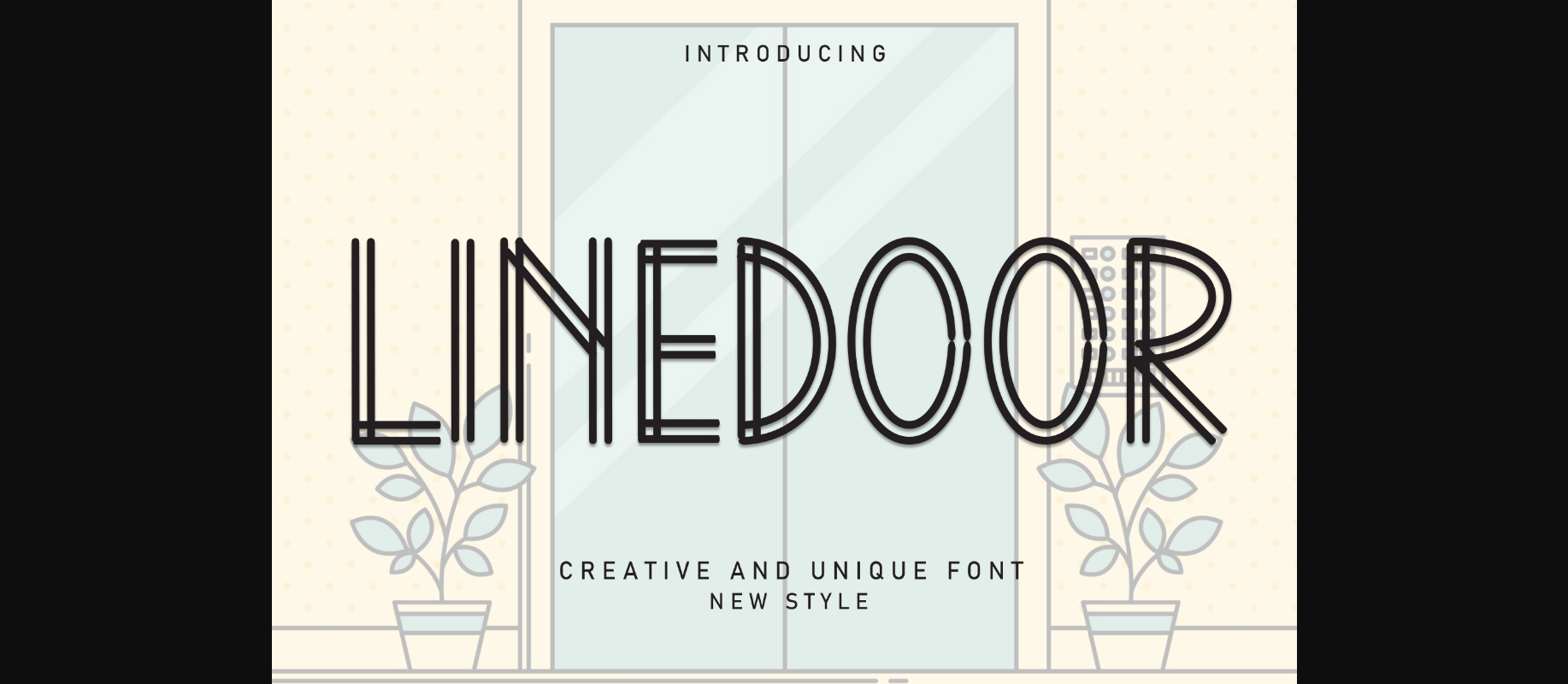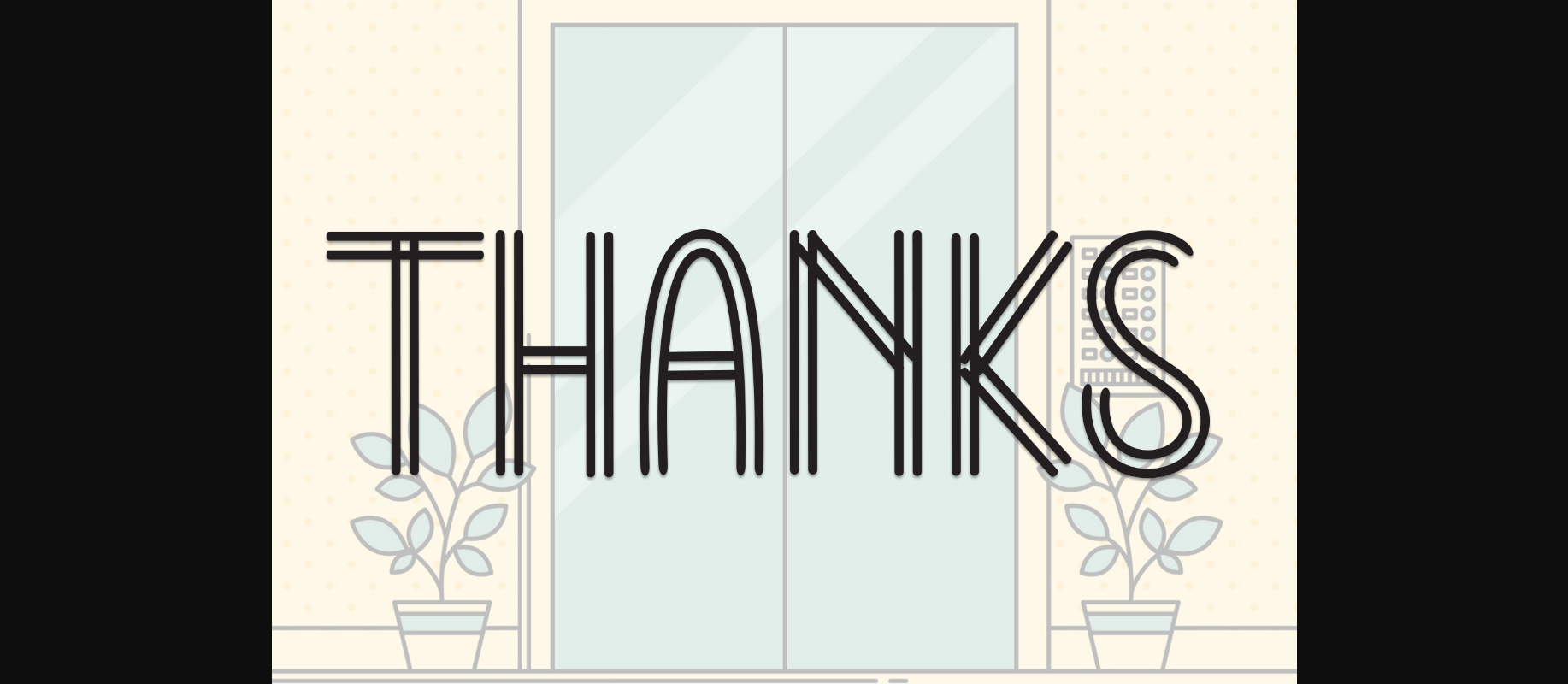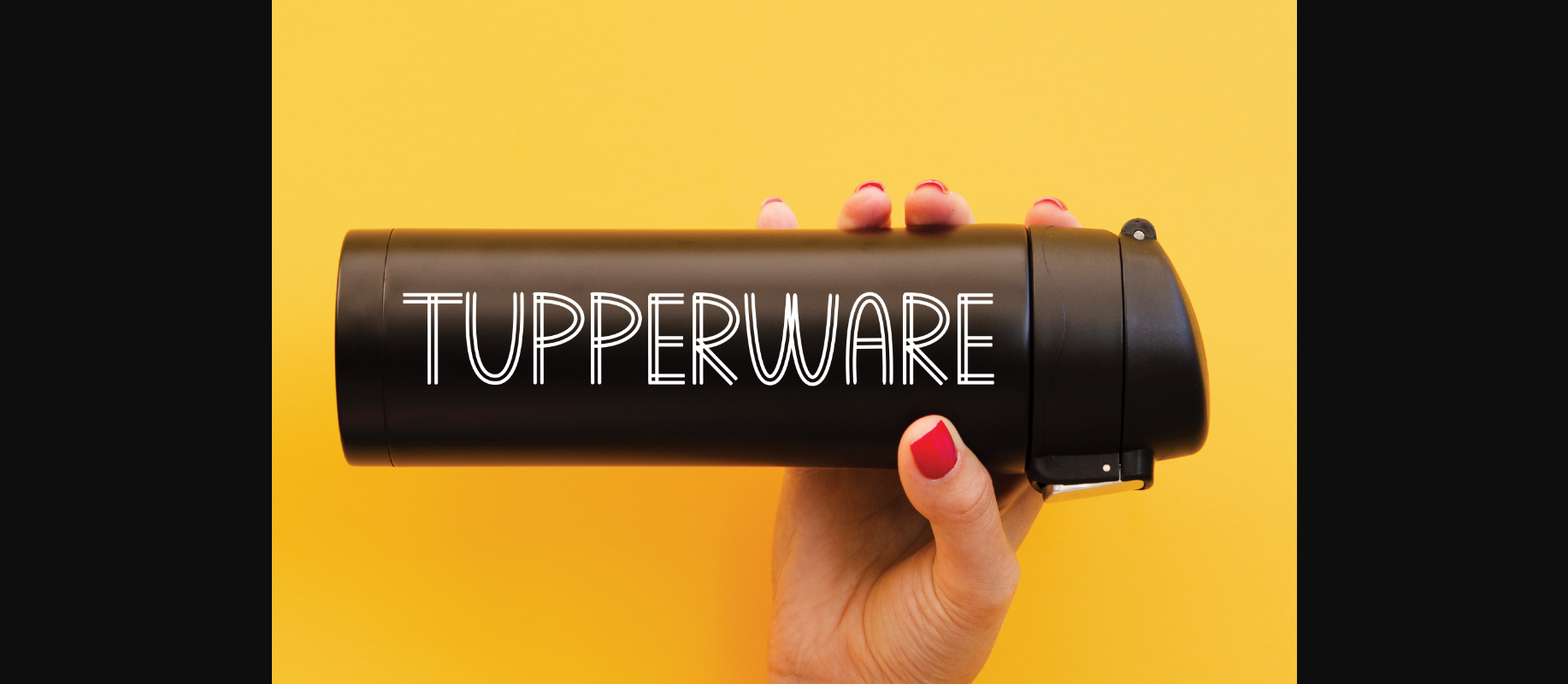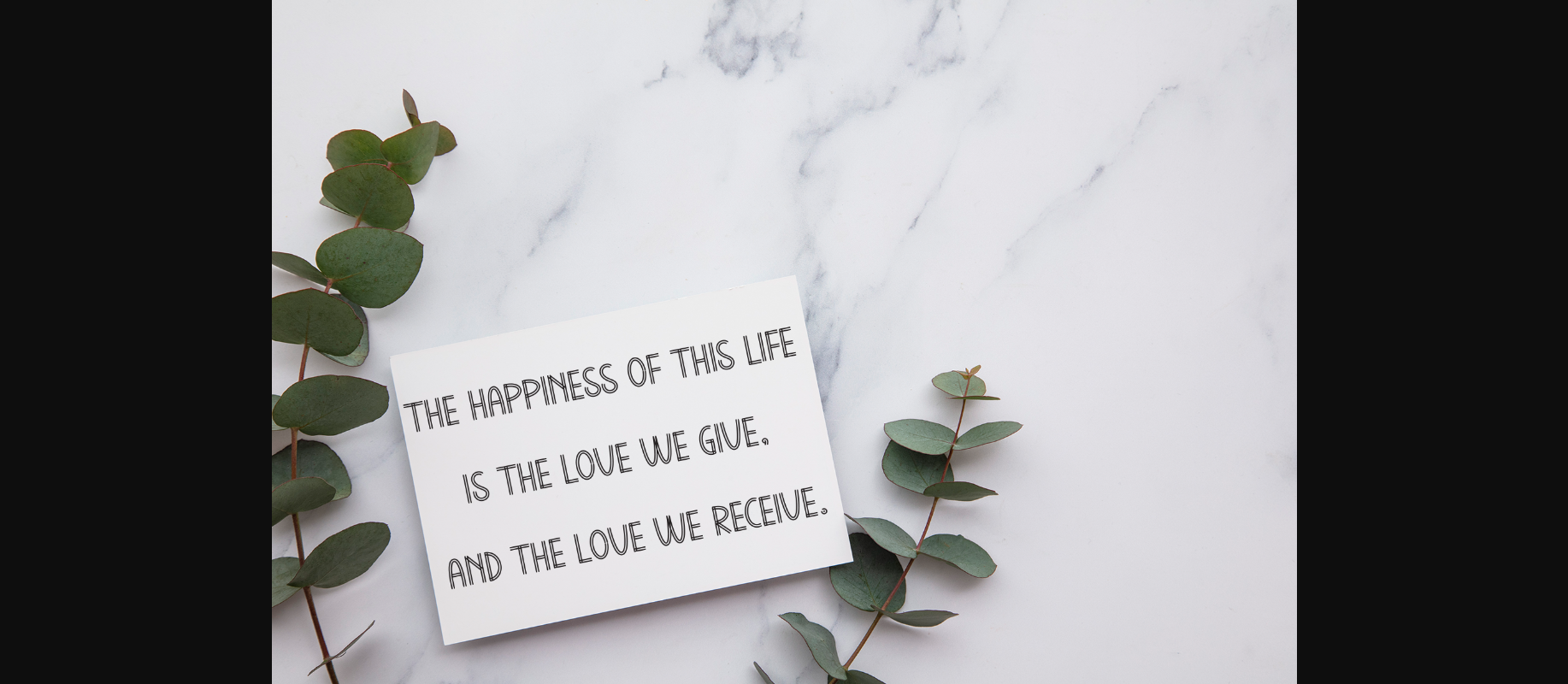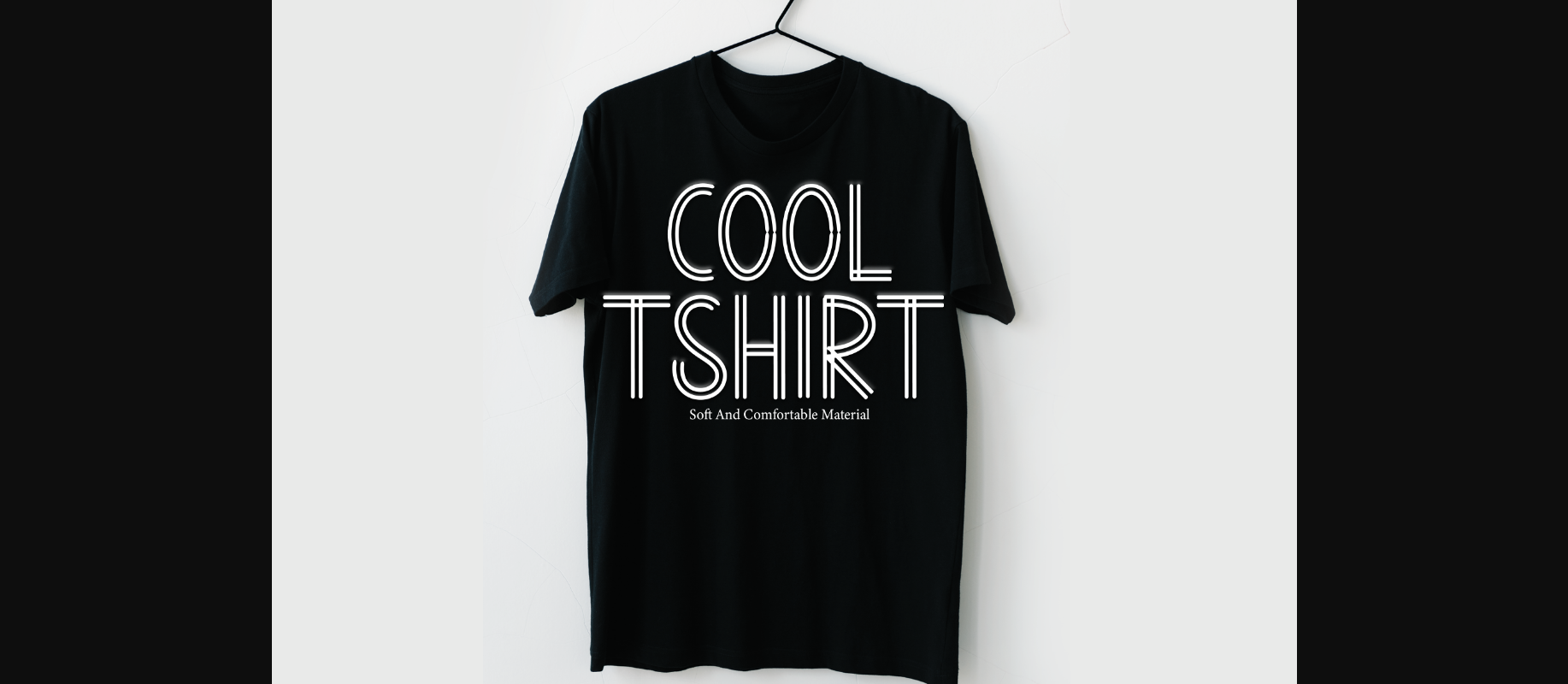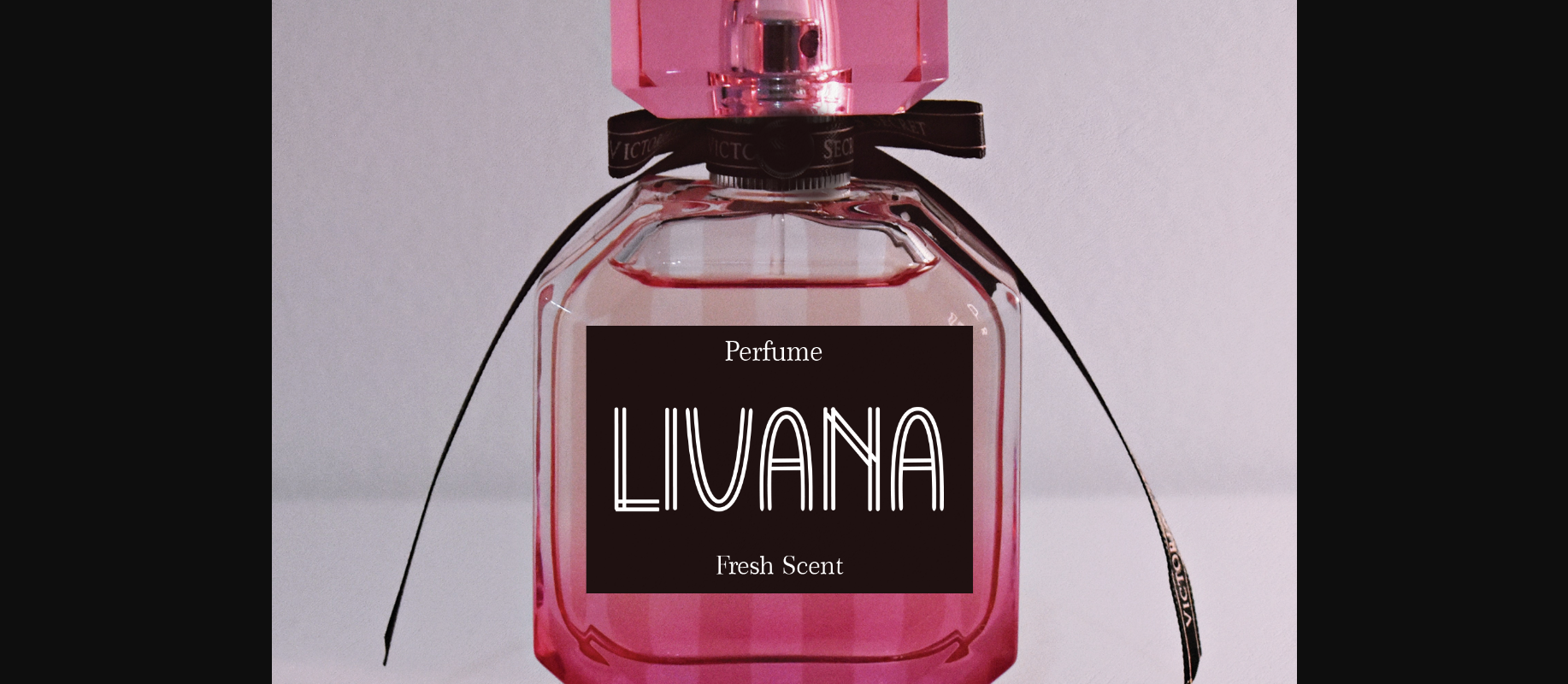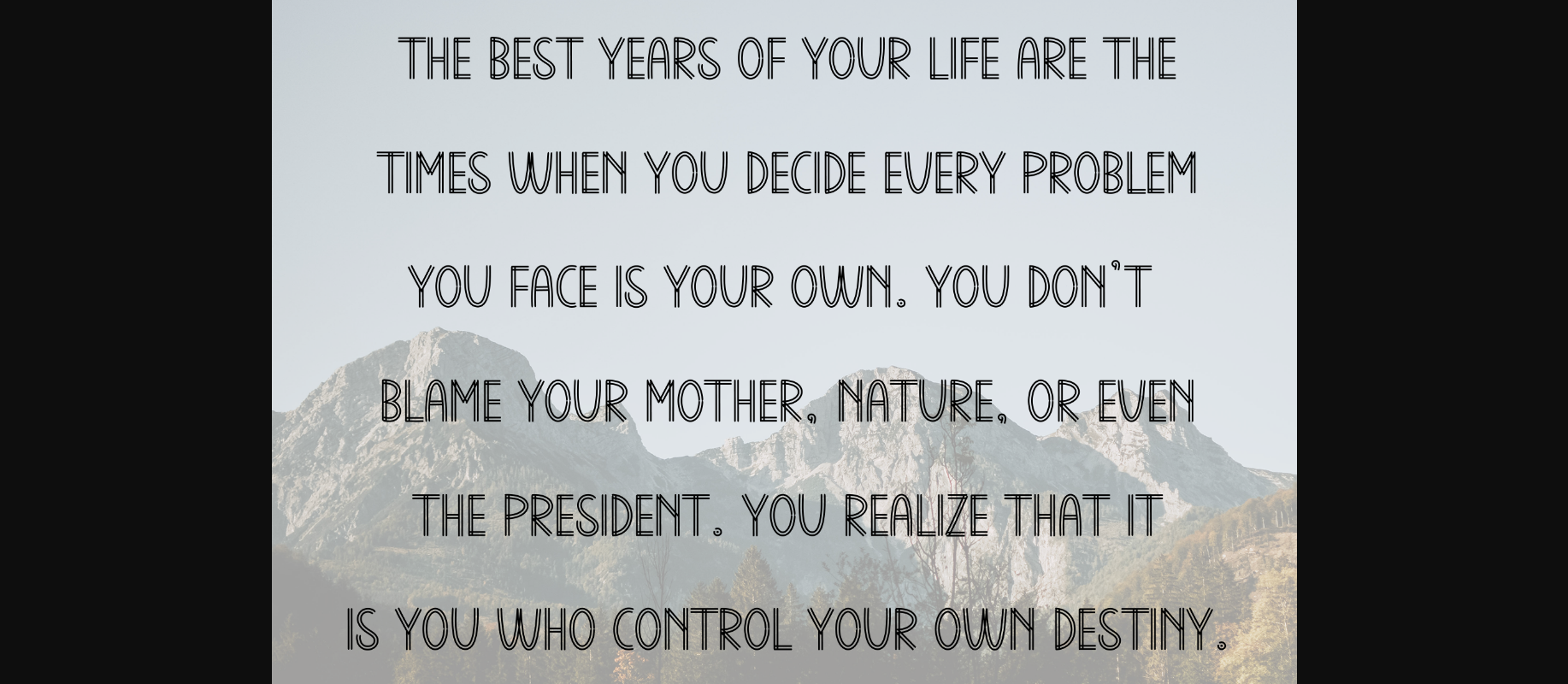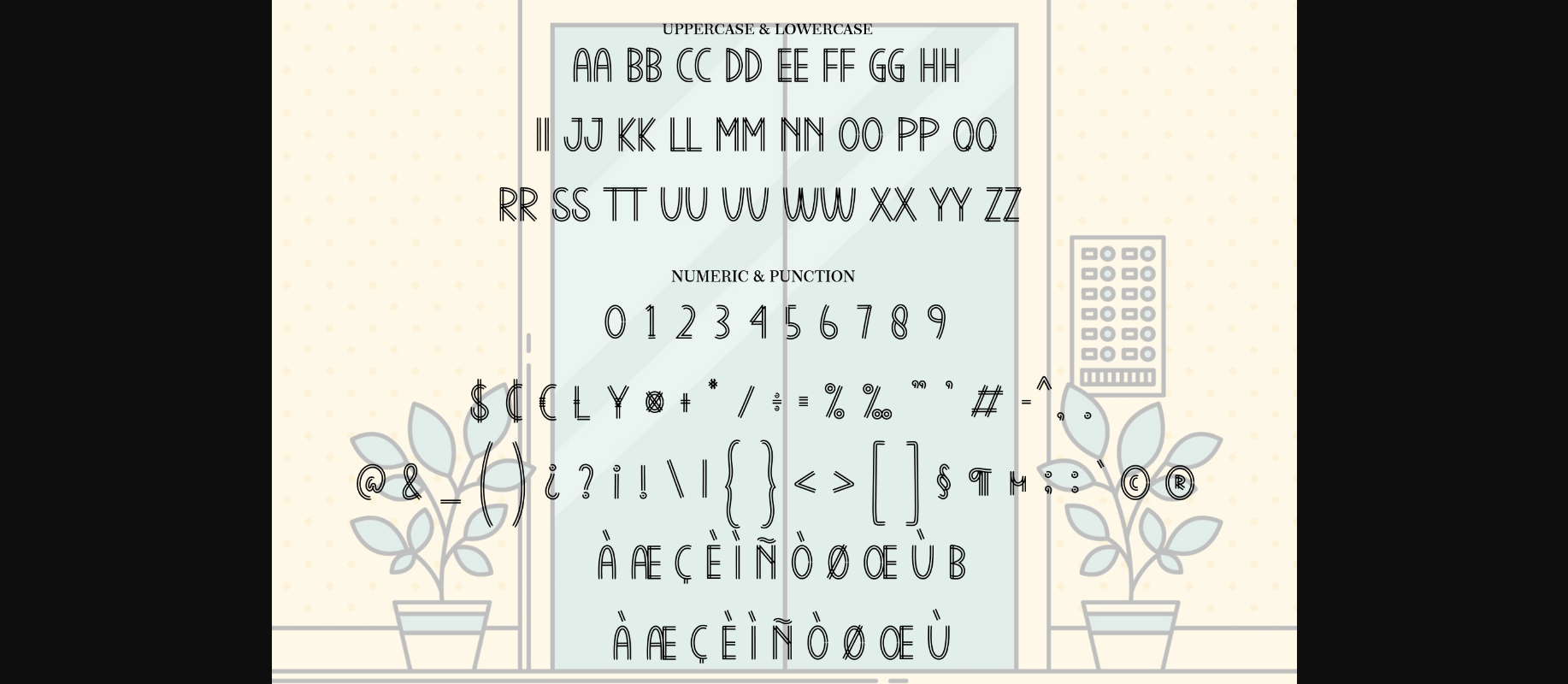
HomeDecorative FontsLinedoor Font Decorative Fonts Linedoor Font FacebookXPinterestWhatsApp 1 of 10 ... Linedoor Font Poster 2... Linedoor Font Poster 3... Linedoor Font Poster 4... Linedoor Font Poster 5... Linedoor Font Poster 6... Linedoor Font Poster 7... Linedoor Font Poster 8... Linedoor Font Poster 9... Linedoor Font Poster 10... About Linedoor Font Linedoor is an incredibly cool and unique decorative font. This modern and bold vibe can easily apply to your favorite designs. DOWNLOAD NOW People also explored Wildwest Strawberry Milkshake Font Celebration Simple Night Font Justnithe Font First Month Font Quinestha Bold Font Hello Calligraphys Font Hiyotori Font 429 0 TagsLinedoor Font Previous articleMemory FontNext articleCamping Font LEAVE A REPLY Cancel reply Comment: Please enter your comment! Name:* Please enter your name here Email:* You have entered an incorrect email address! Please enter your email address here Website: Save my name, email, and website in this browser for the next time I comment. Personal Use Free Aliqa Personal Use Free Read more about this font Shrag Script Personal Use Free Read more about this font Allea Sweet Personal Use Free Read more about this font Almonte Personal Use Free Read more about this font BLOG To increase your work productivity, choose the most readable fonts. In today's fast-paced work environment, where digital communication and information consumption are integral to our daily routines, the choice of fonts can significantly impact... Top 7 Google Fonts Alternatives for Faster and Privacy-Friendly Web Design (2025) 5 Fonts That Will Dominate Design Trends in 2026 Modern Sans-Serif Fonts That Brands Love in 2025